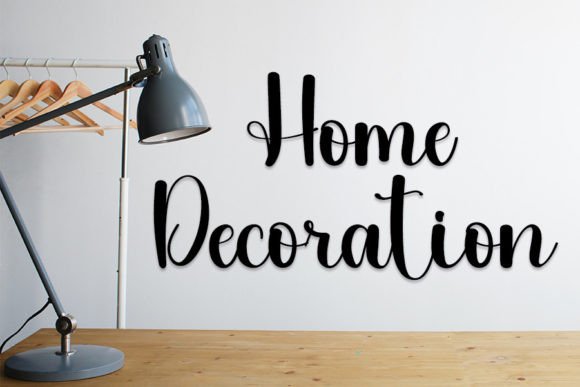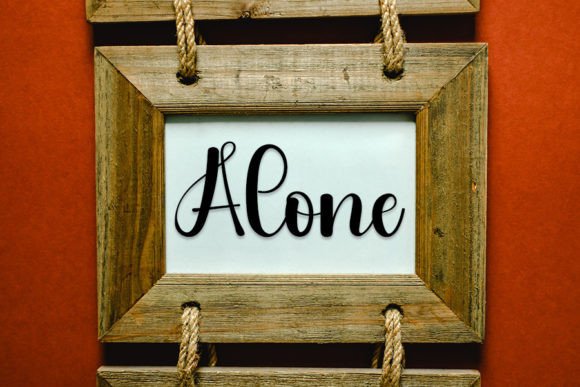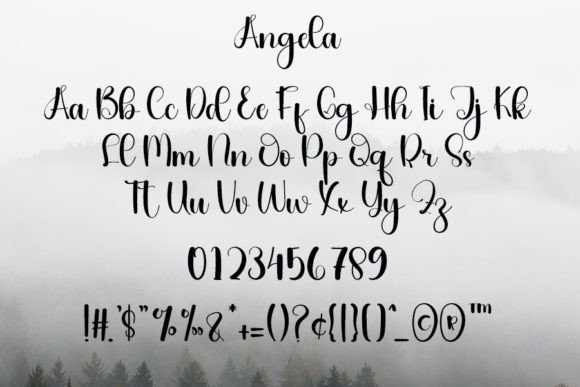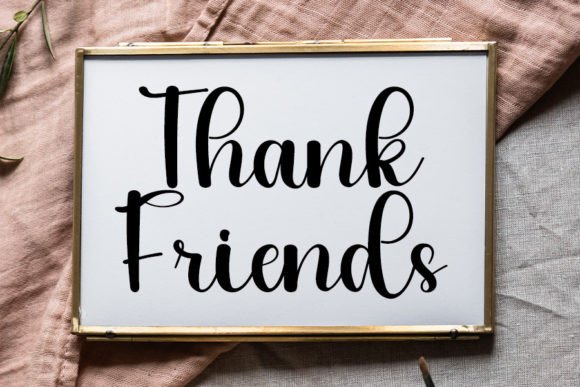
Introducing Angela Font: Elevate Your Designs with Elegance and Class
In the world of typography, fonts play a crucial role in conveying the tone and personality of a design. For designers and crafters seeking to add a touch of sophistication and elegance to their projects, Angela Font is an excellent choice. This trendy handwritten font boasts a contemporary atmosphere and impeccable form, drawing inspiration from timeless classic calligraphy.
The Inspiration Behind Angela Font
Angela Font is rooted in the rich tradition of calligraphy, where the art of beautiful handwriting has been perfected over centuries. The font’s creator aimed to capture the essence of classic calligraphy and infuse it with a modern twist, making it suitable for a wide range of design applications. The result is a font that exudes elegance, refinement, and a deep sense of style.
Key Features of Angela Font
- Trendy and Contemporary: Angela Font features a fresh and modern design that will make your projects stand out in a crowded digital landscape.
- Handwritten with Love: The font’s handwritten nature gives it a personal and approachable feel, perfect for designs that require a touch of warmth and humanity.
- Impeccable Form: Angela Font boasts impeccable form and spacing, ensuring that your text is always clear, readable, and visually appealing.
- Timeless Classic Inspiration: The font’s inspiration from classic calligraphy ensures that it will remain relevant and stylish for years to come.
What Makes Angela Font Perfect for Designers and Crafters?
Angela Font is an excellent choice for designers and crafters working on various projects, including:
- Logos and Branding: The font’s elegance and sophistication make it perfect for logos and branding projects that require a high-end feel.
- Wedding and Event Design: Angela Font’s romantic and whimsical nature makes it ideal for wedding and event designs, such as invitations, programs, and decor.
- Packaging and Product Design: The font’s modern and trendy vibe makes it suitable for packaging and product design projects that require a fresh and contemporary look.
- Stationery and Paper Crafts: Angela Font’s handwritten nature and classic inspiration make it perfect for stationery and paper crafts, such as greeting cards, journals, and planners.
Tips for Using Angela Font Effectively
To get the most out of Angela Font, consider the following tips:
- Pair with Neutral Backgrounds: Angela Font’s bold and elegant design works best with neutral backgrounds that allow the text to take center stage.
- Experiment with Colors: The font’s versatility allows it to work well with a wide range of colors, from soft pastels to rich jewel tones.
- Use for Headings and Titles: Angela Font’s unique and stylish design makes it perfect for headings and titles, adding a touch of elegance to your designs.
Angela Font is a stunning handwritten font that brings elegance and class to any design project. With its contemporary atmosphere, impeccable form, and timeless classic inspiration, it’s an excellent choice for designers and crafters seeking to elevate their designs. Whether working on logos, wedding designs, packaging, or stationery, Angela Font is sure to make a lasting impression.